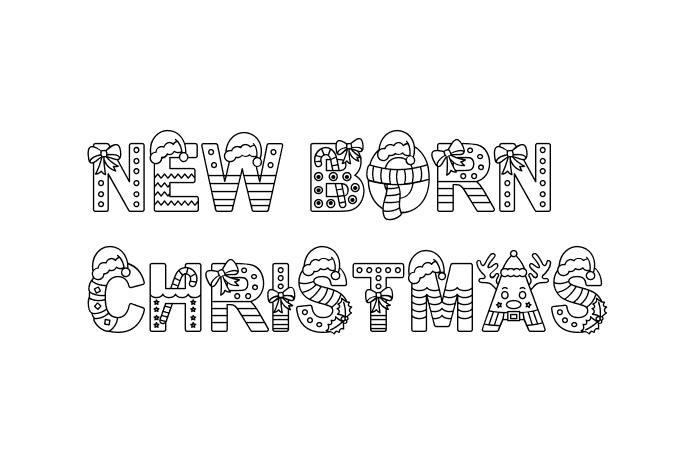
Christmas Pride
This is an amazing Christmas font, It’s perfect for card Christmas day, children birthday party, wedding invitations, posters, headings, t-shirts, letterheads, signage, labels, badges etc, this font designed by Aldedesign 2021 (Alde Saputro) is available for free download and personal use.
Font designer Aldedesign 2021 (Alde Saputro)